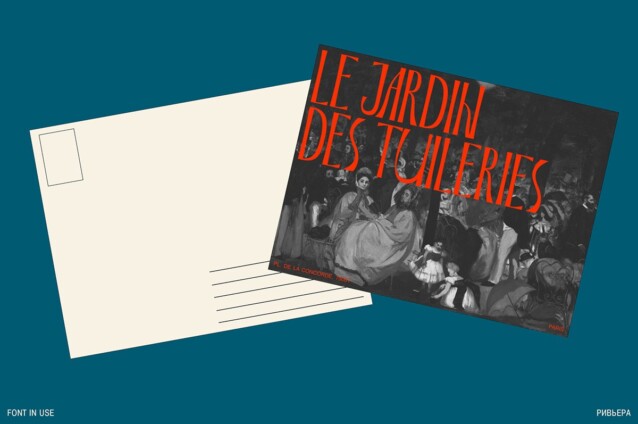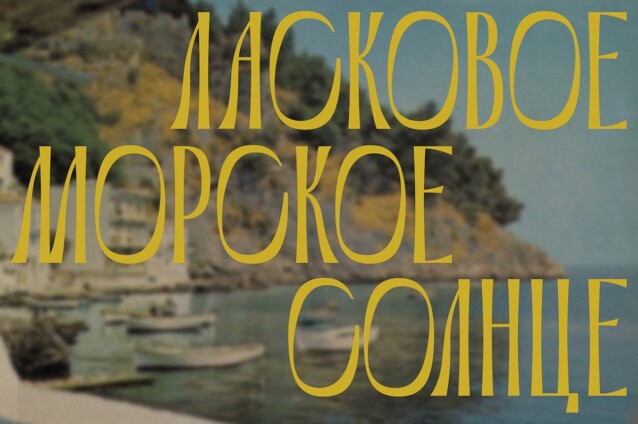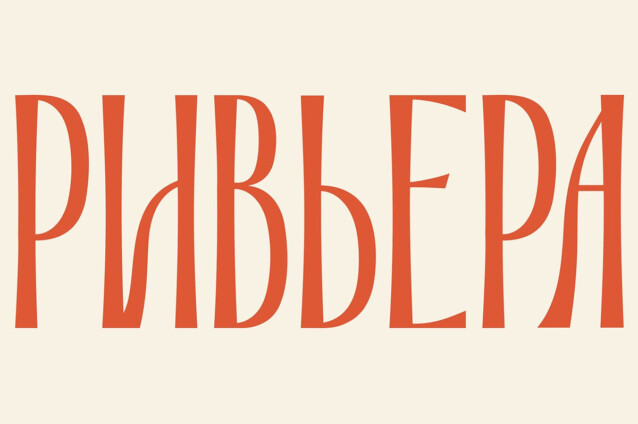
Riviera Font
Riviera Font is an elegant and modern display font with a luxurious feel. Such as luxury logo and branding, classy editorial design, woman magazine, cosmetic brand, fashion promotional, art gallery branding, museum, historical of architectural, boutique branding, stationery design, blog design, modern advertising design, card invitation, art quote, home decor, book/cover title, special events and any more.